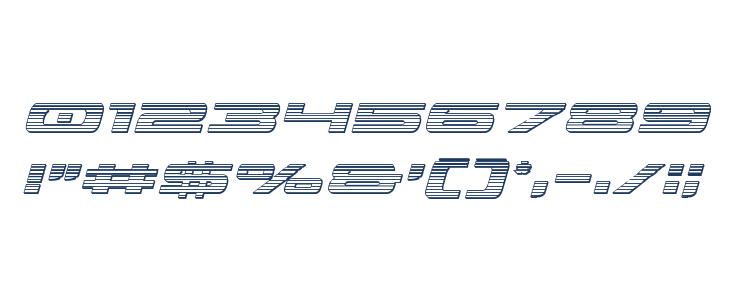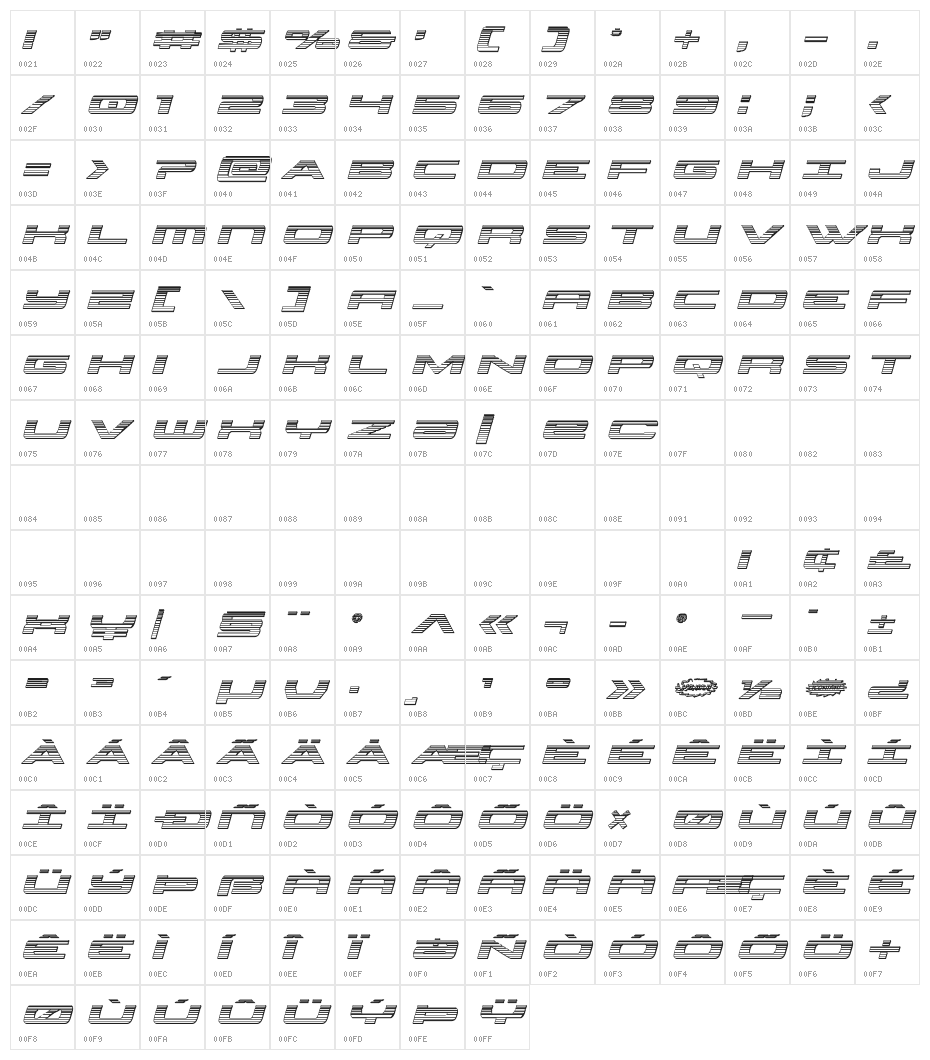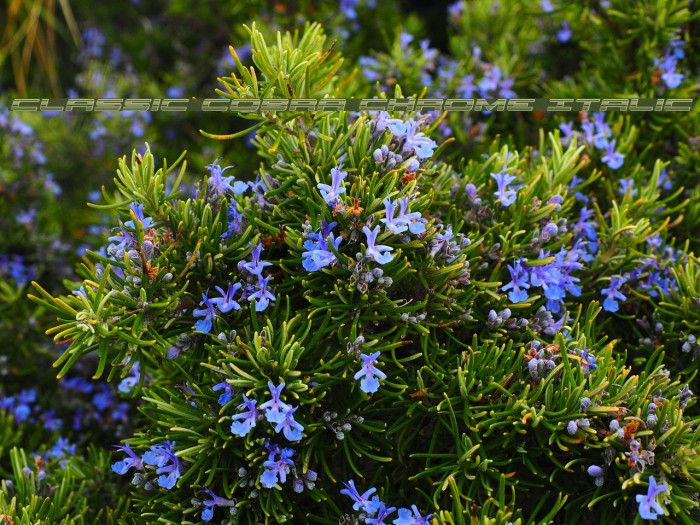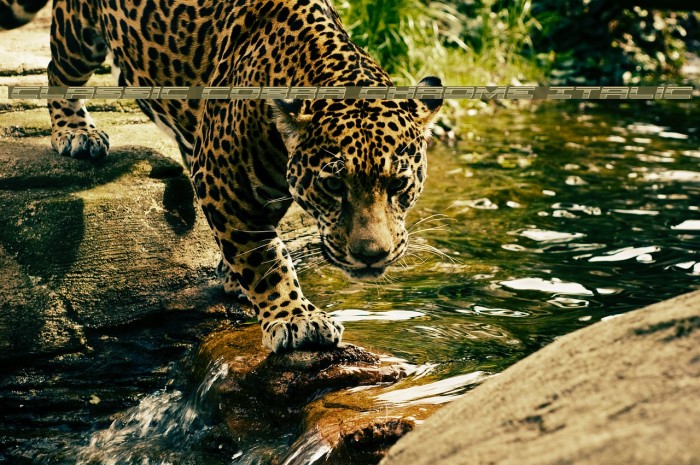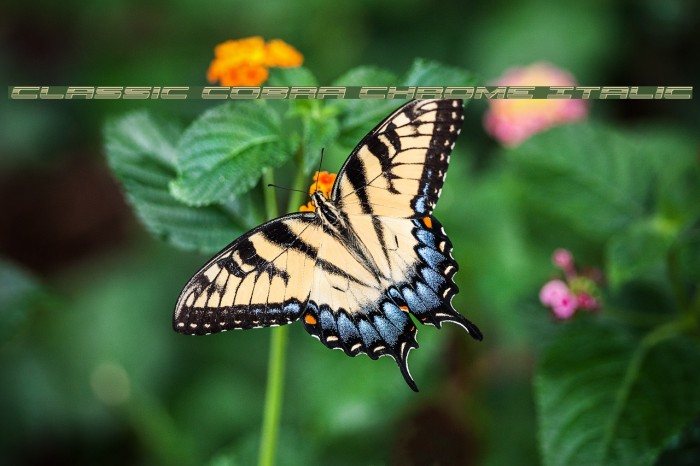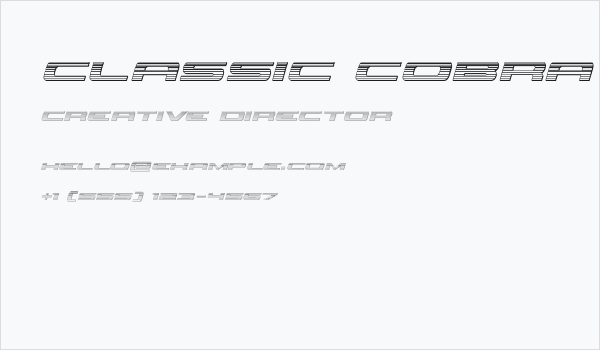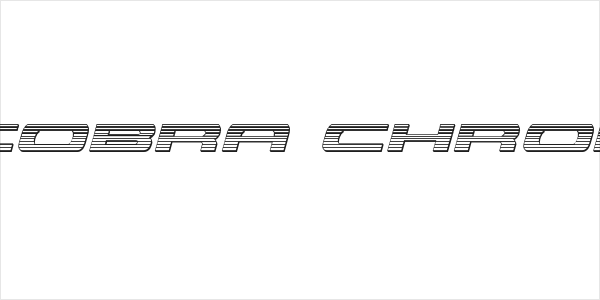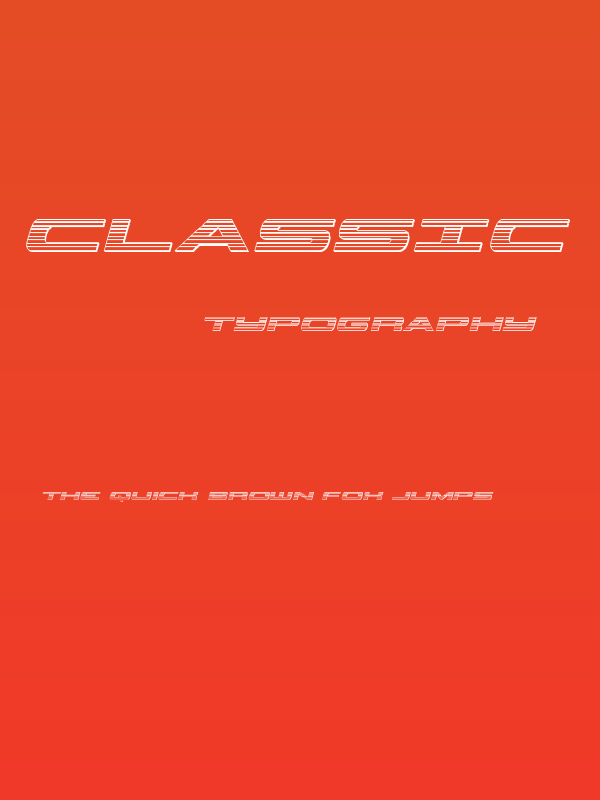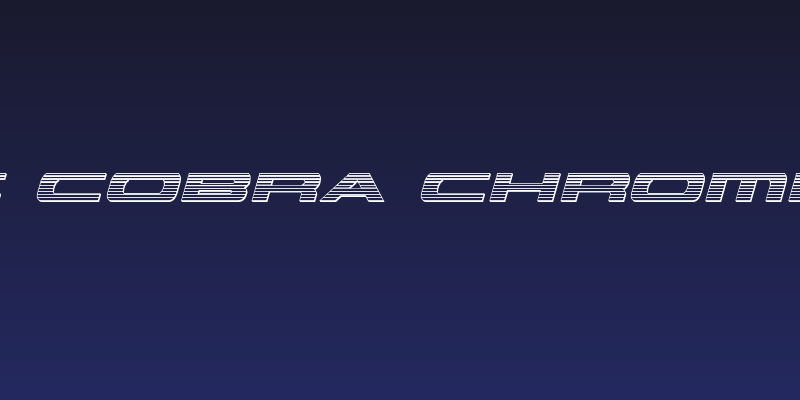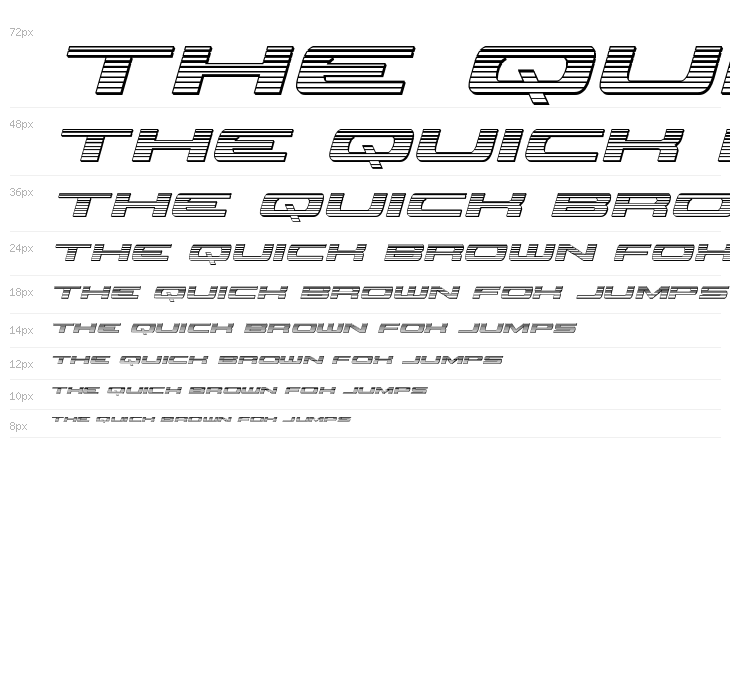
Classic Cobra Chrome Italic Font
Classic Cobra Chrome Italic Description
This font features a sleek, futuristic design with a distinct italic slant, giving it a dynamic and modern appearance. The characters are constructed with a series of parallel lines, creating a chrome-like effect that adds depth and a sense of motion. The uppercase and lowercase letters maintain a consistent style, with sharp angles and clean lines that enhance readability while maintaining a unique aesthetic. The numerals and special characters follow the same design principles, ensuring uniformity across all glyphs. This font is ideal for projects that require a bold, contemporary look with a touch of sophistication.